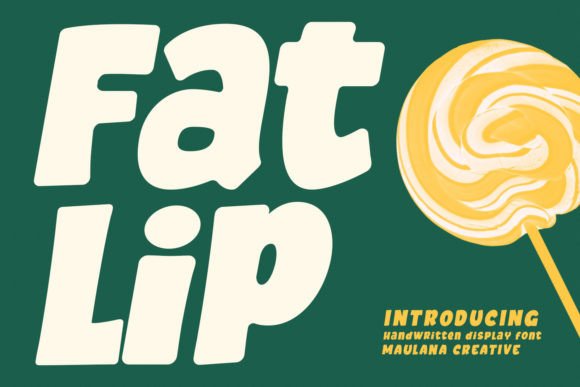
Behold, Fatlip: an audacious slanted display font that will inject captivating energy into your projects. Its bold, steady strokes exude confidence, while its playful character, including ligatures and alternates, invites creativity and uniqueness.
Fatlip is not just a font; it's a creative catalyst. It's perfect for crafting logos that demand attention, social media posts that pop, movie and book titles that intrigue, and any design where you want your words to dance off the screen. Its versatility extends to long text as well, where its readability remains impeccable.
Imagine a logo that grabs the viewer's attention, a social media post that elicits a smile, or a movie title that piques curiosity. Fatlip is your secret weapon, your font-tastic partner in creating designs that connect.
Embrace Fatlip's charm, unleash your creativity, and make stunning work that captivates and inspires. Let Fatlip transform your designs into masterpieces, elevate your brand identity, and leave a lasting impression on your audience.
Join the Fatlip revolution today and experience the power of a font that's more than just letters; it's an expression of your individuality and your passion for design. Unleash your imagination and create something truly remarkable with Fatlip by your side.